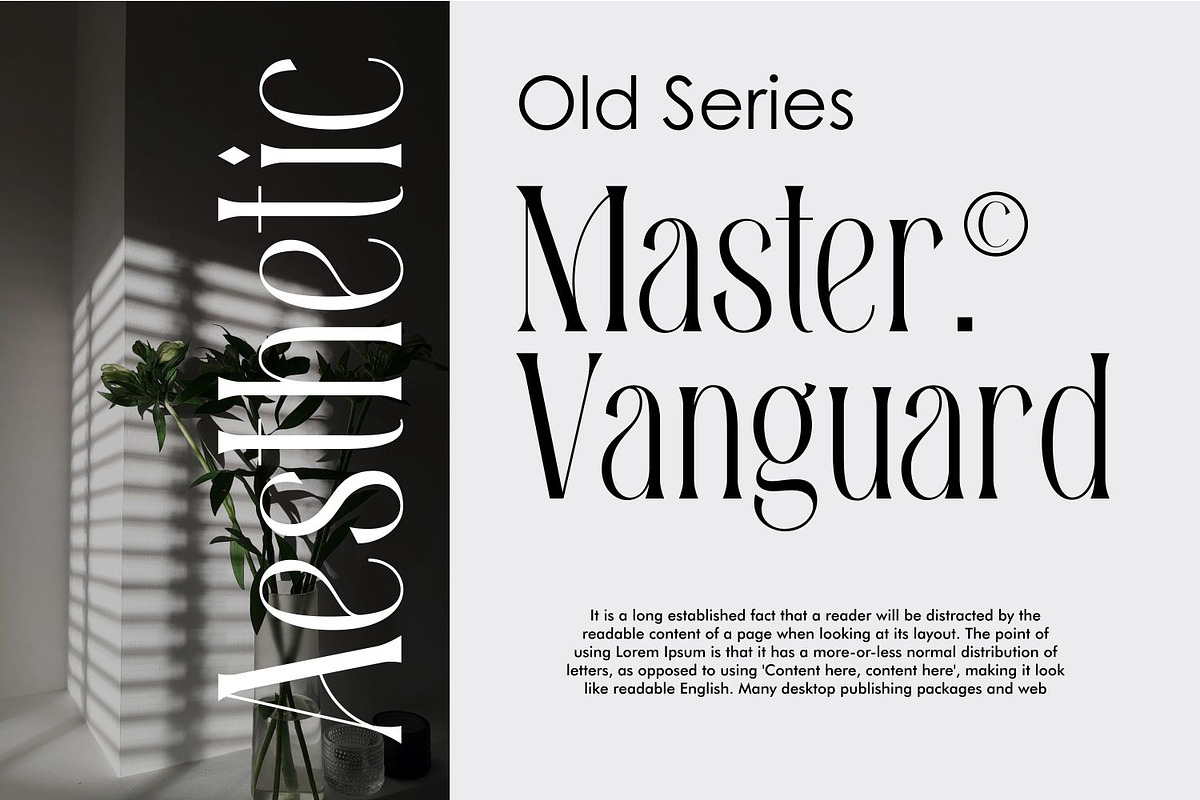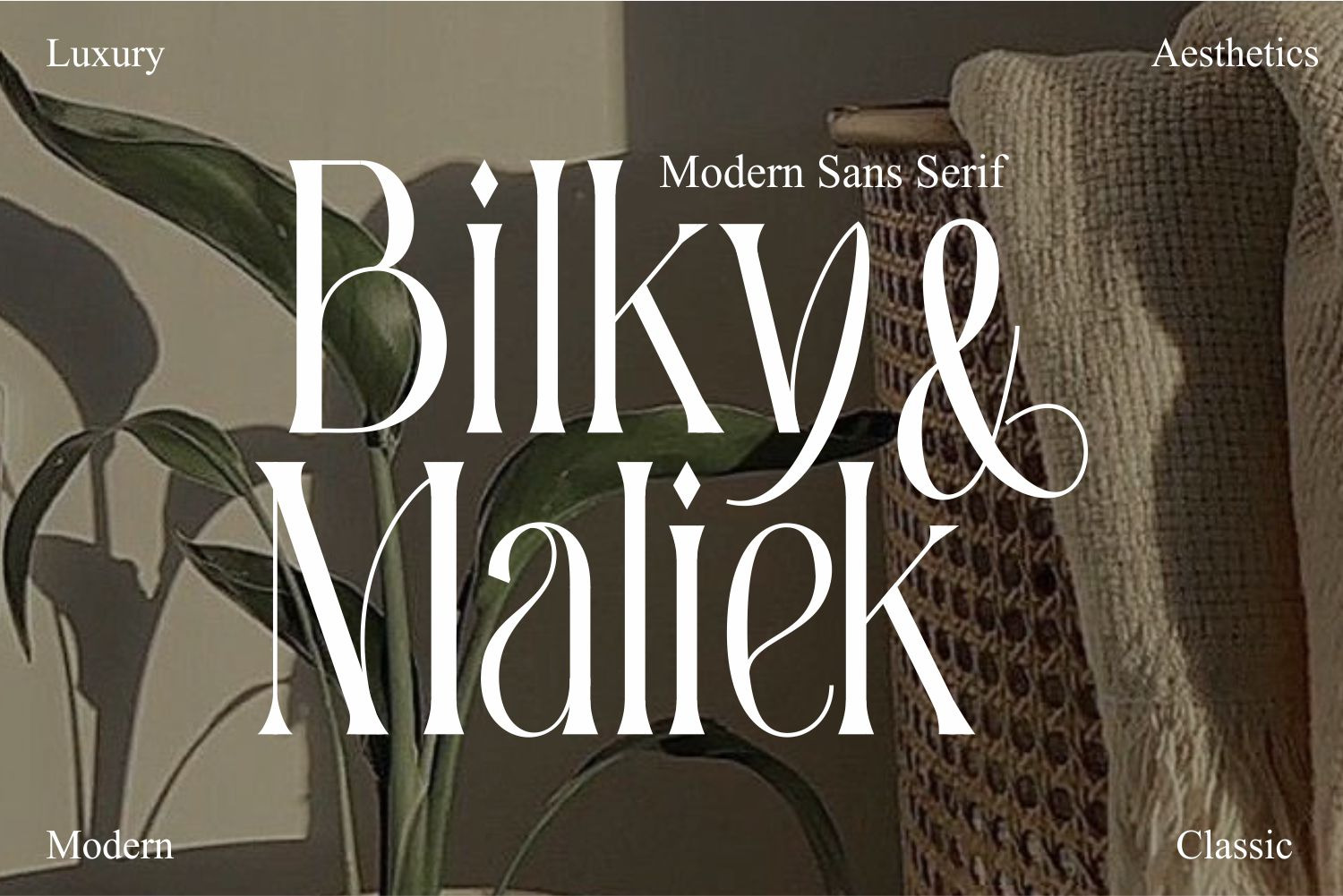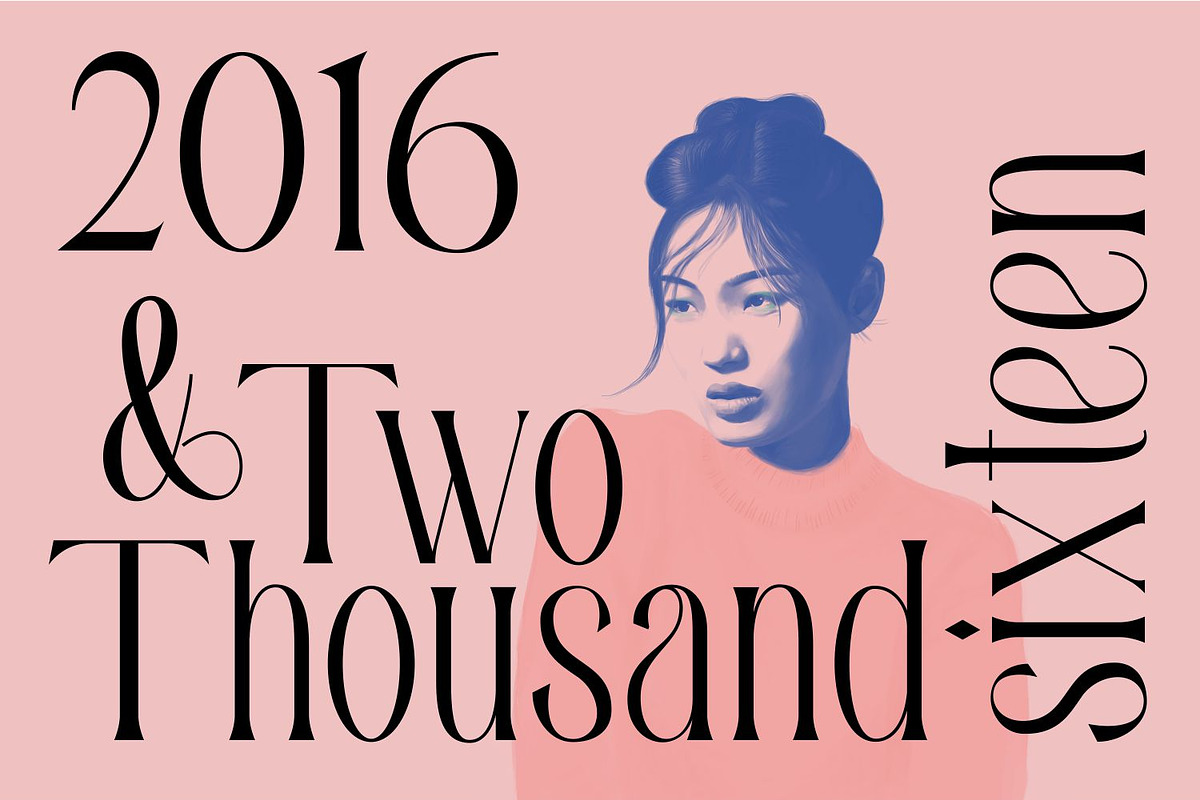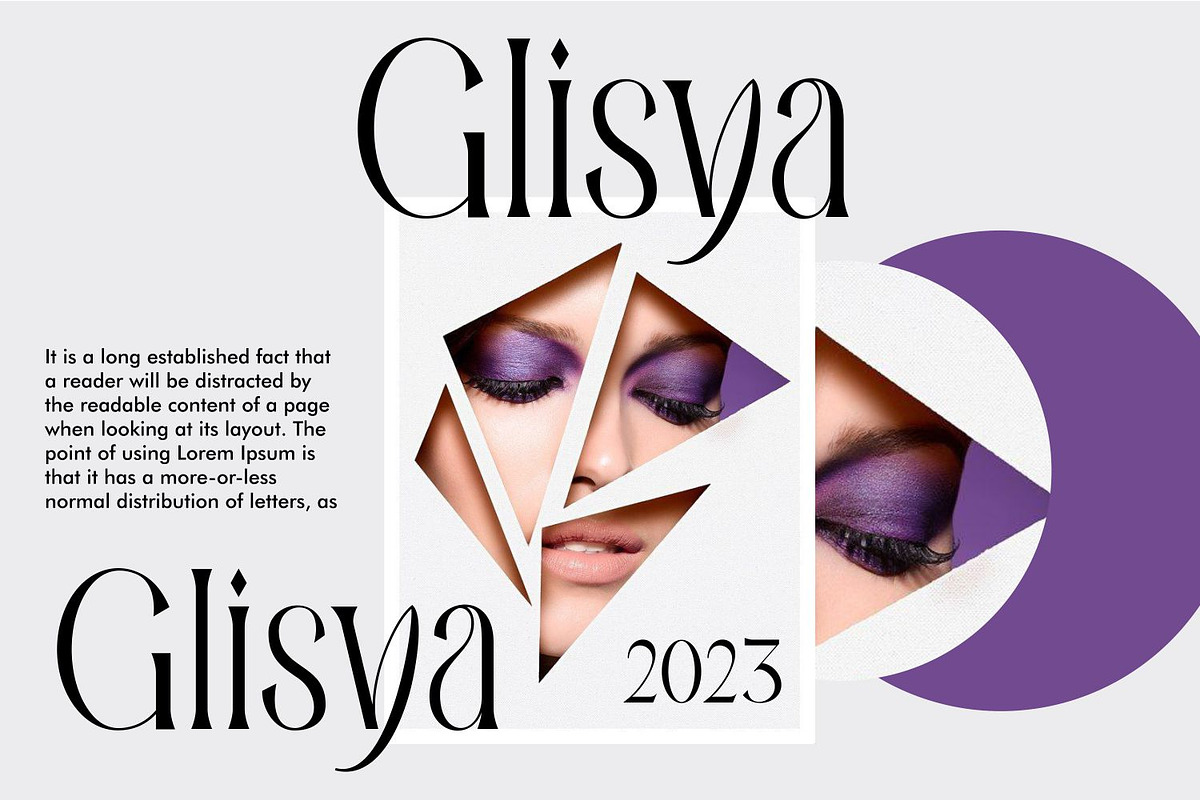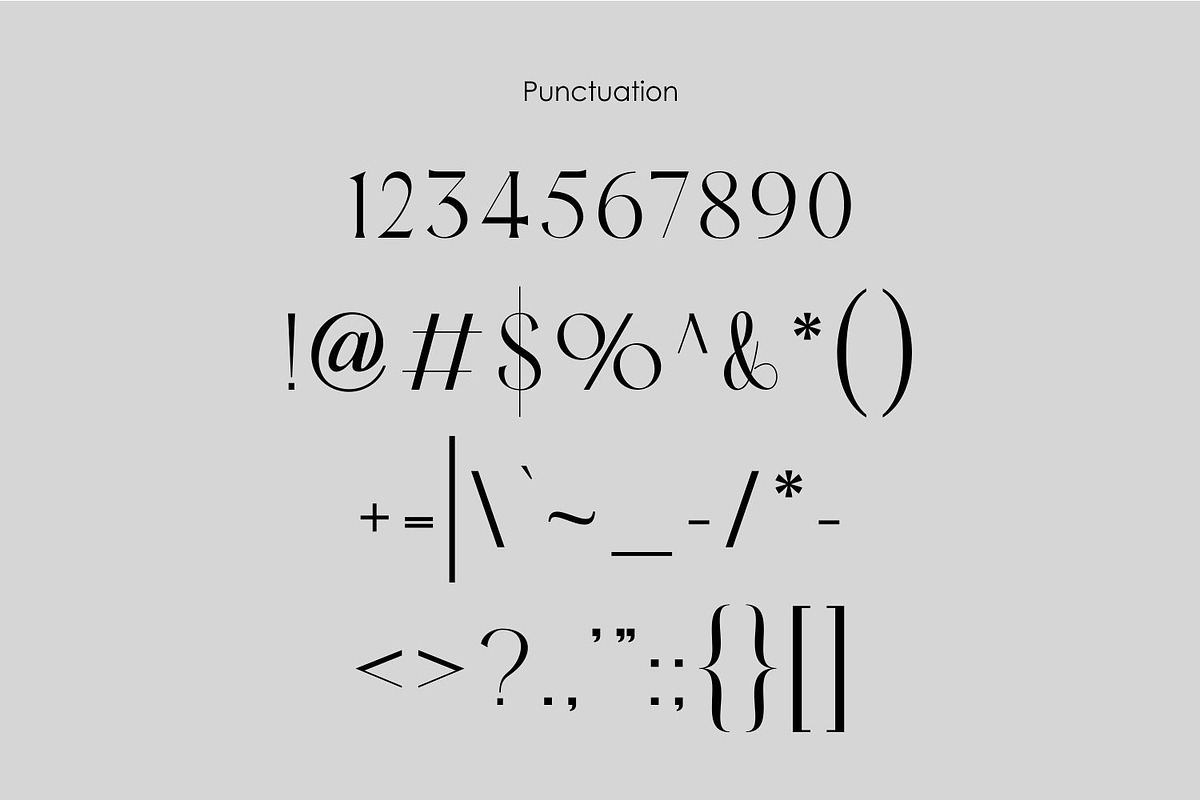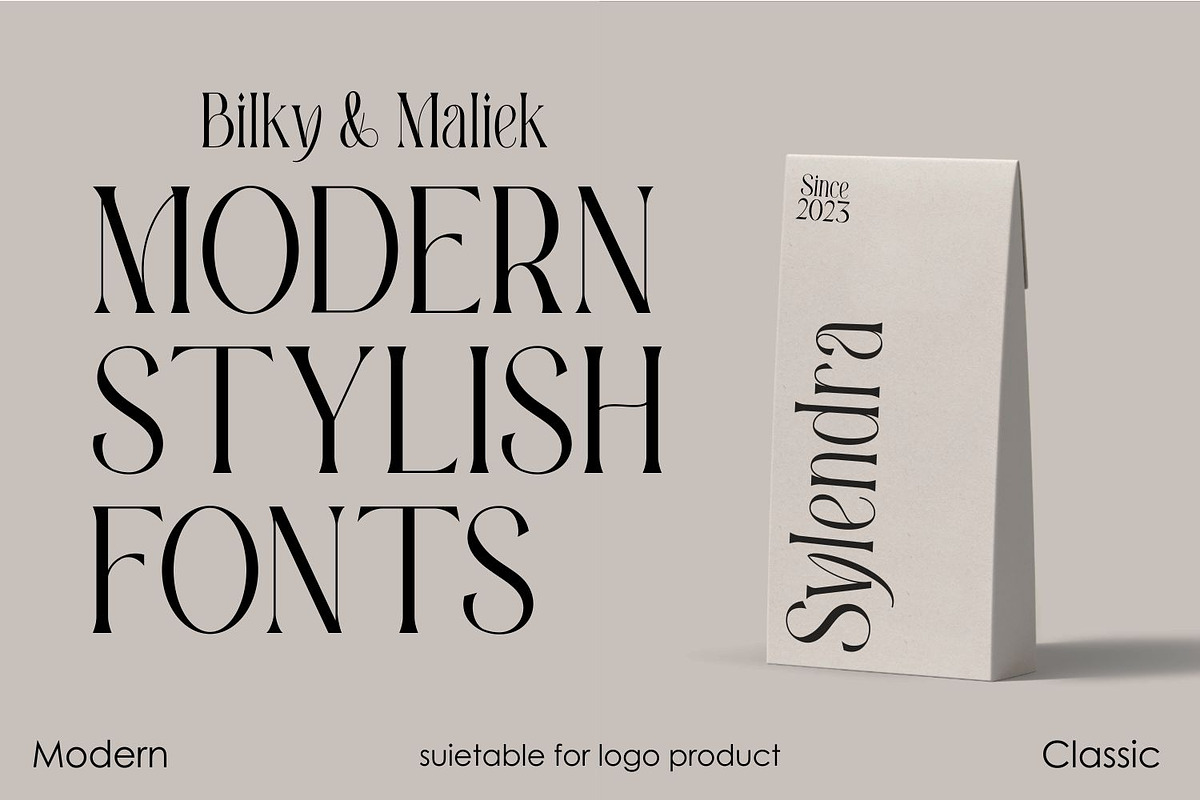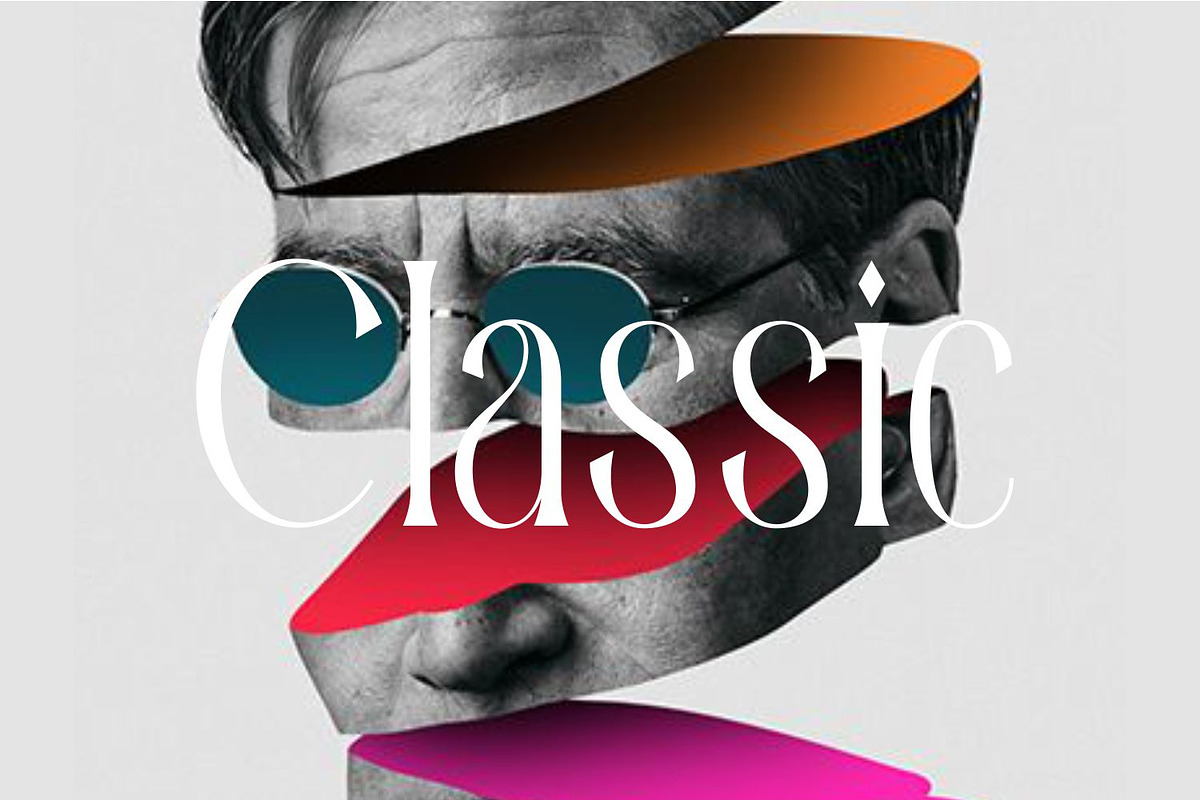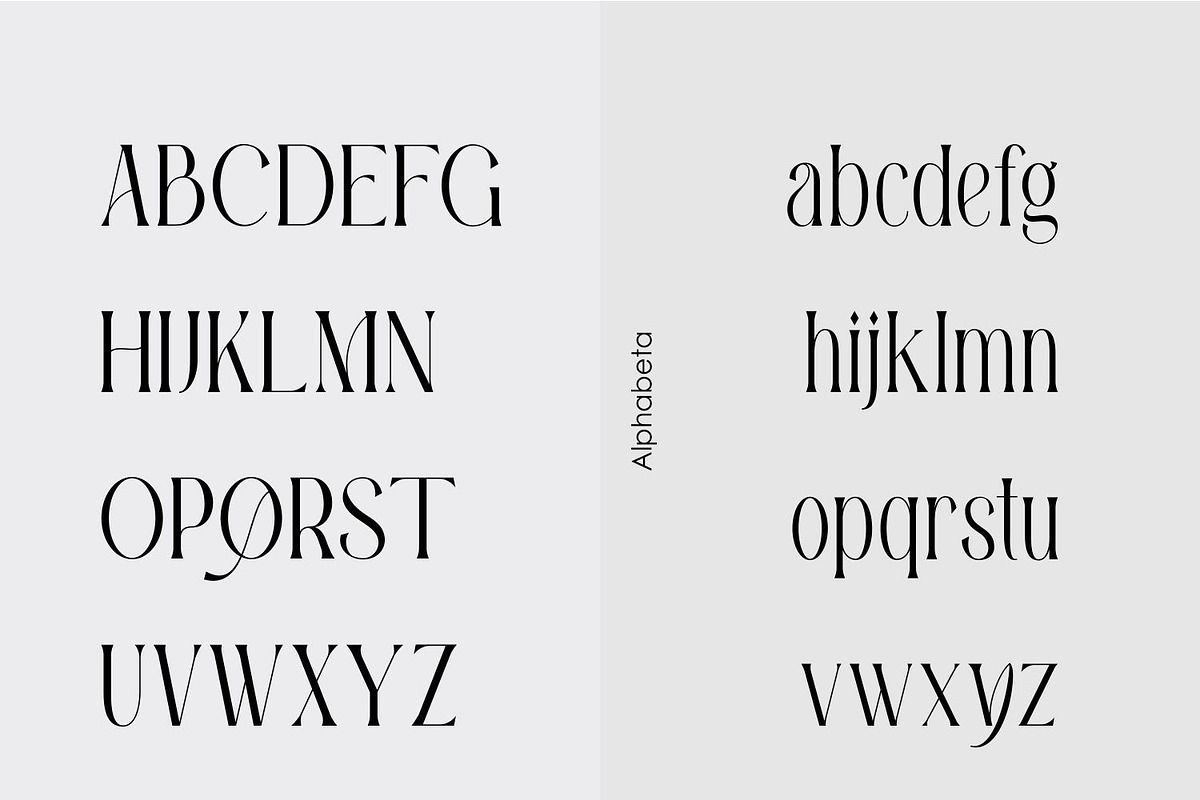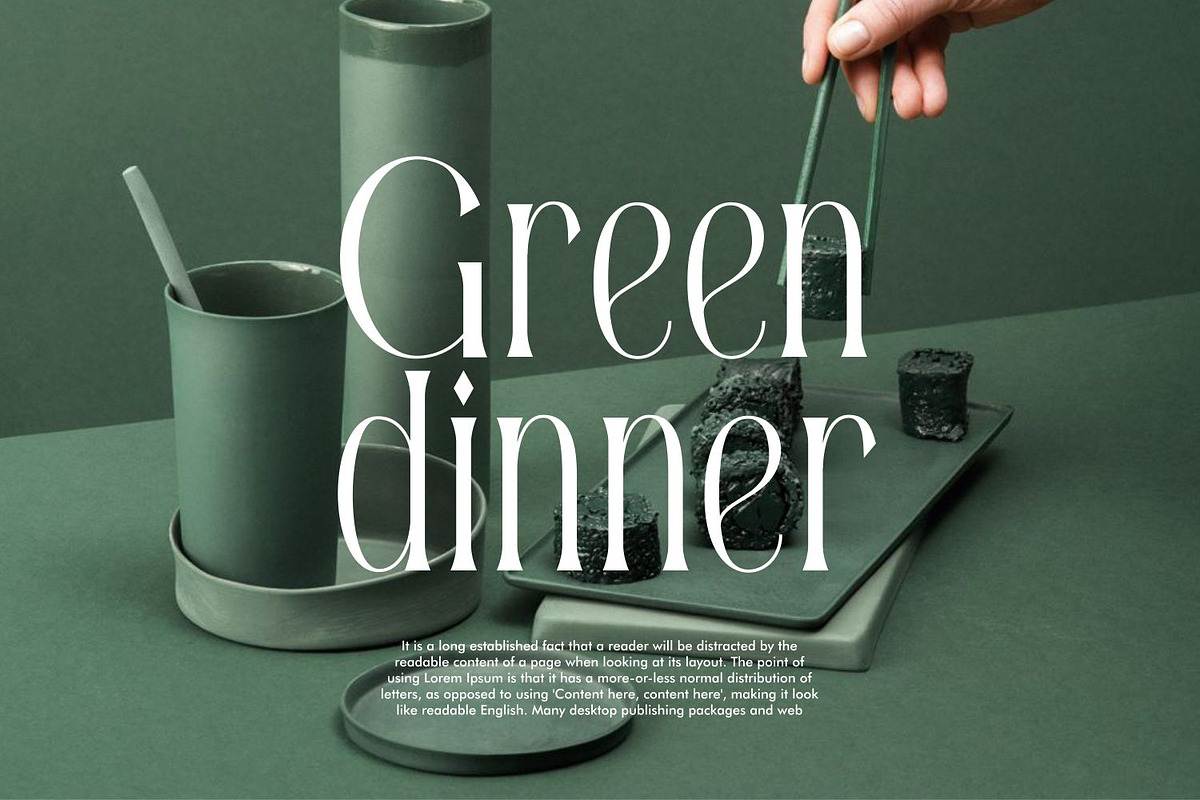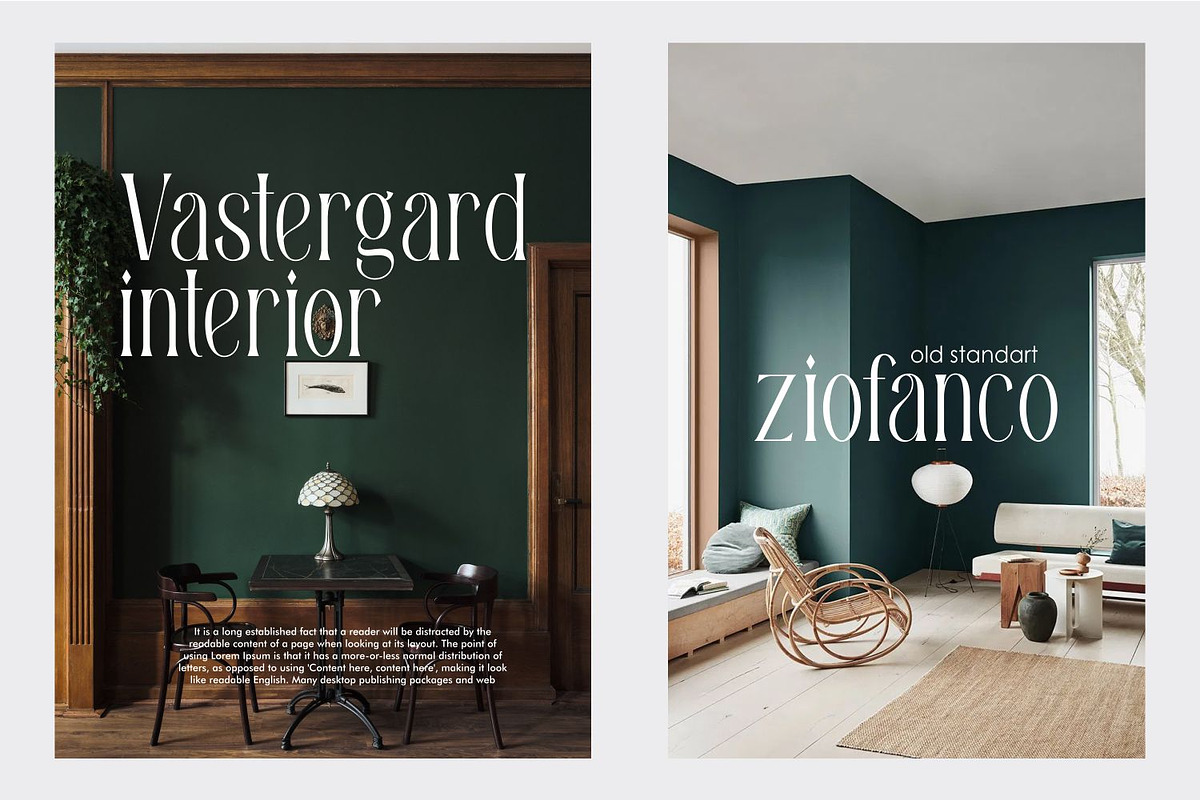
Bilky Maliek Beautifull Serif Font
The Bilky Maliek Font is a stunning serif typeface that radiates beauty and elegance in every character. With its graceful curves and refined details, this font adds a touch of sophistication to any design project. Whether you’re crafting wedding invitations, branding materials, or editorial layouts, the Bilky Maliek Font brings a sense of refined charm that captivates the viewer. Its versatile nature makes it suitable for both digital and print applications, ensuring your designs stand out with a touch of classical beauty.